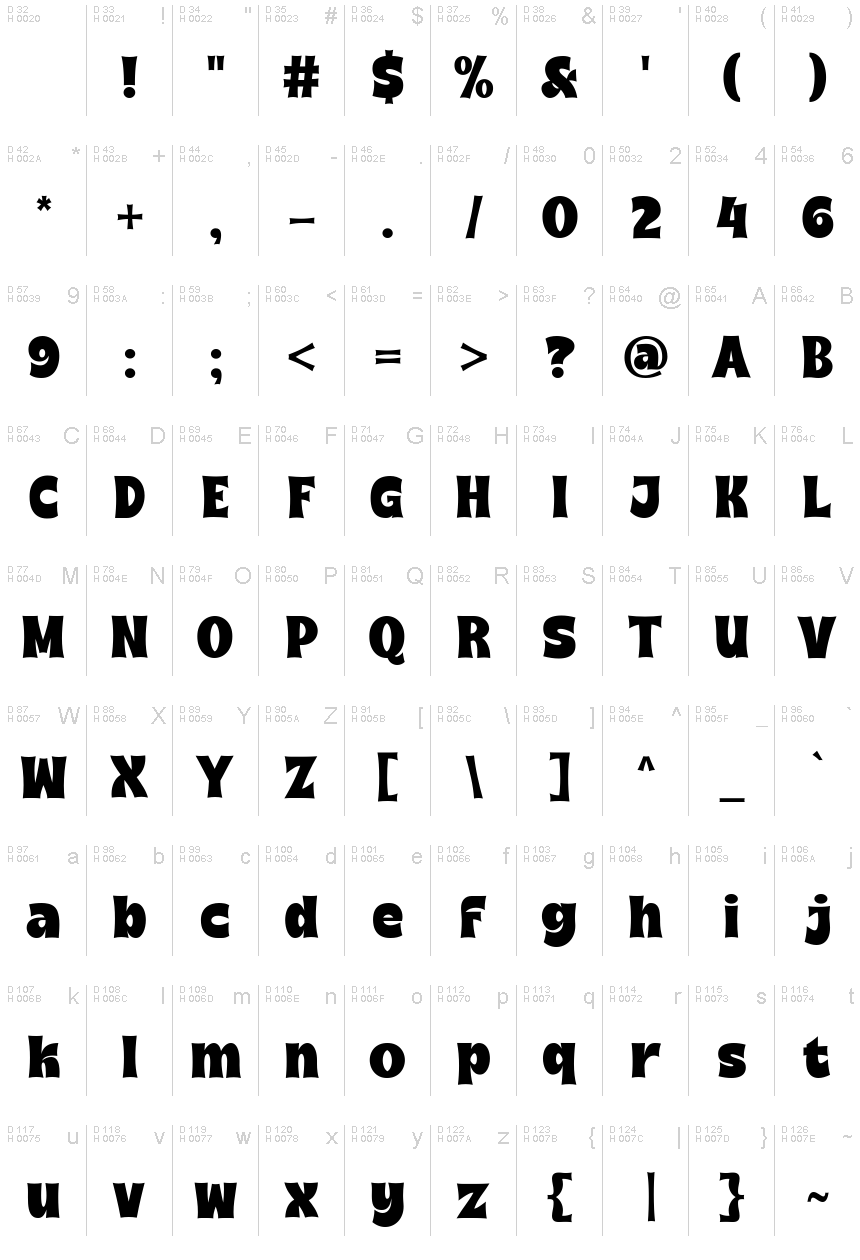
Super Bright
Super Bright by fsuarez913 is more than just a name - it's a statement. This display font brings a touch of timeless boldness to your designs. Inspired by classic styles, Super Bright boasts thick, confident letterforms that guarantee to grab attention.
With its cartoonish and playful twist, this bold font is perfect for headlines, posters, logos, and any project that demands a spirited and eye-catching typeface. Whether aiming for retro charm or looking to inject some fun into modern designs, Super Bright delivers unmatched versatility and visual appeal. Let your creativity shine with the bold expression that only Super Bright can provide!